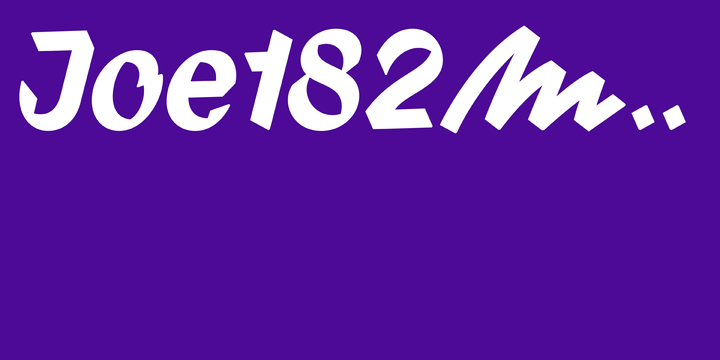
Joe182
A script face based on the authentic traces left by a thick chisel-tip marker, Joe182 was named after the atmosphere of the streets of New York City in the 1970s and 80s, where this script could be seen on almost every street corner in the city’s neighborhoods.
In addition to spray paint, the anonymous Joe182 also used markers, which inspired the designer and defined the character of the typeface.
The font is primarily suited for headlines, posters and short sentences. The character set supports most European languages and contains ligatures as well as alternative characters.